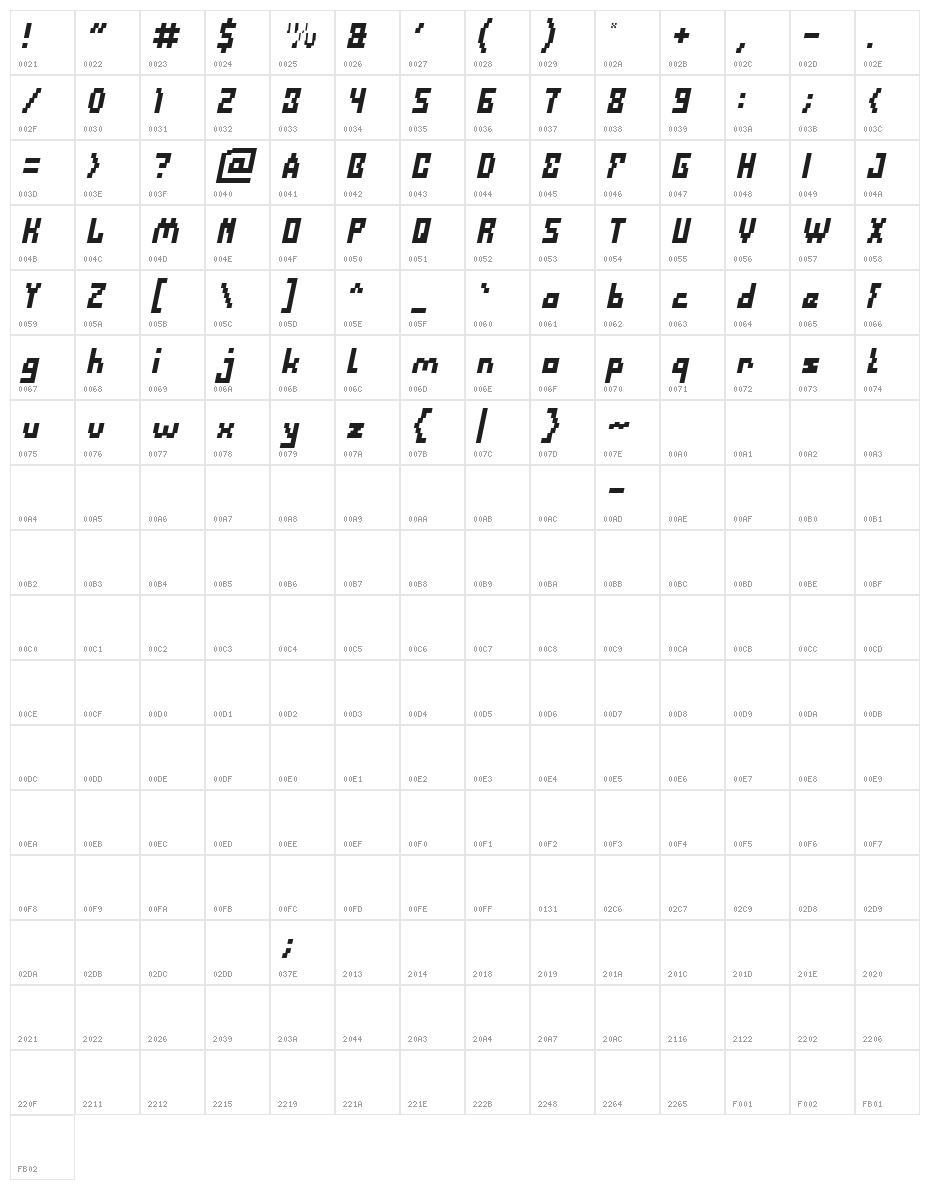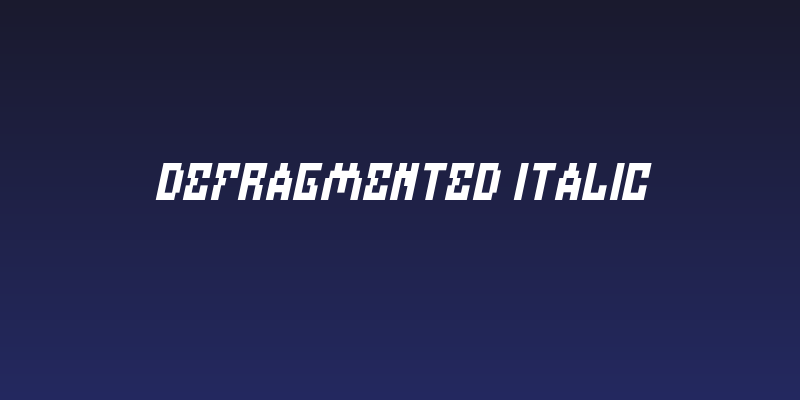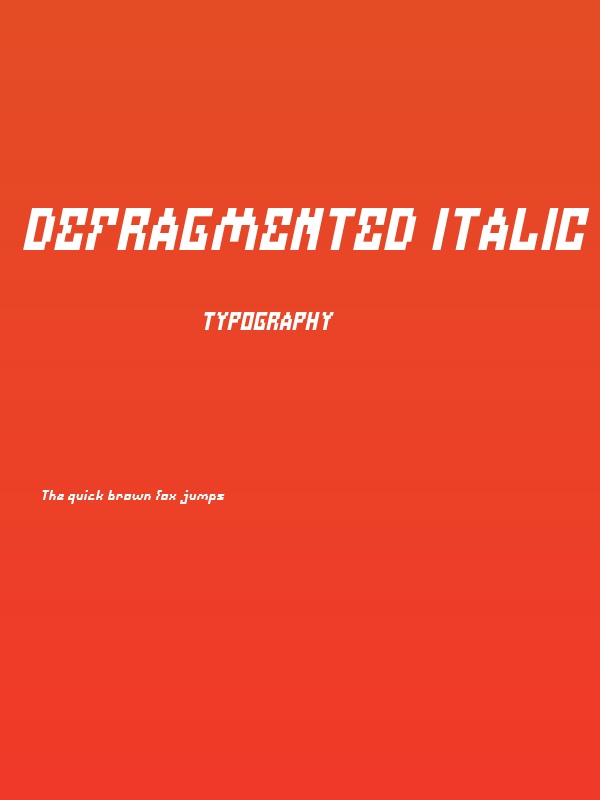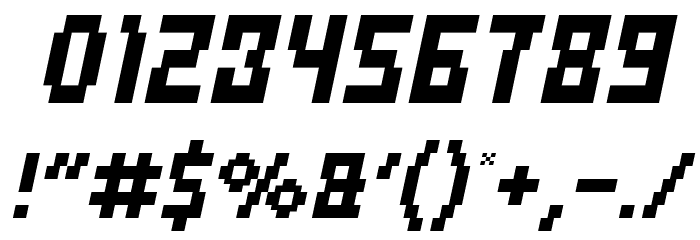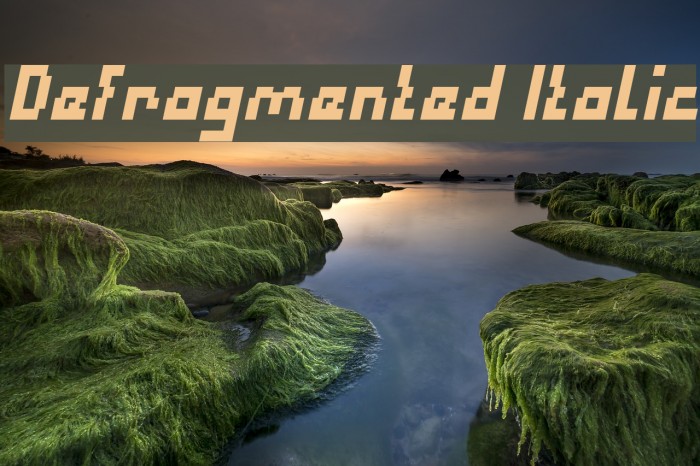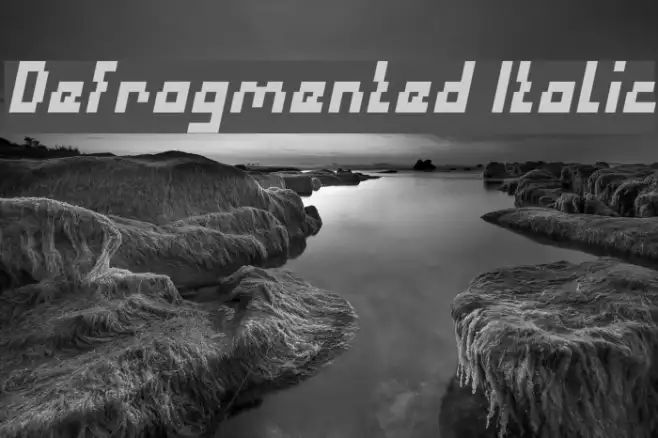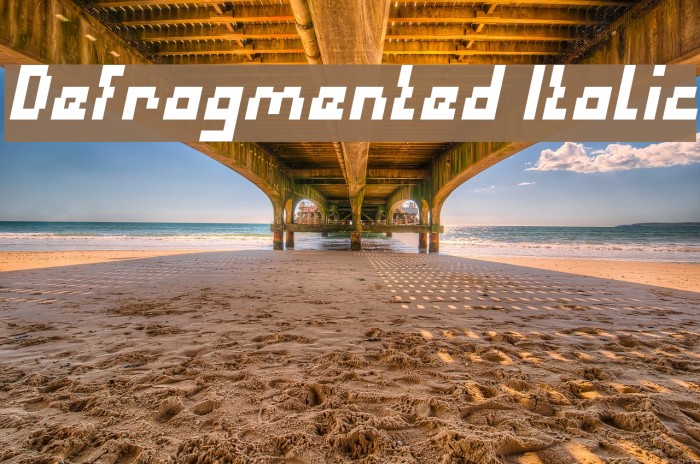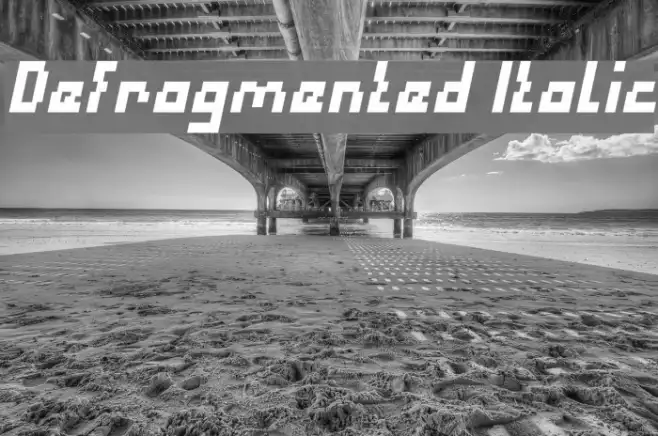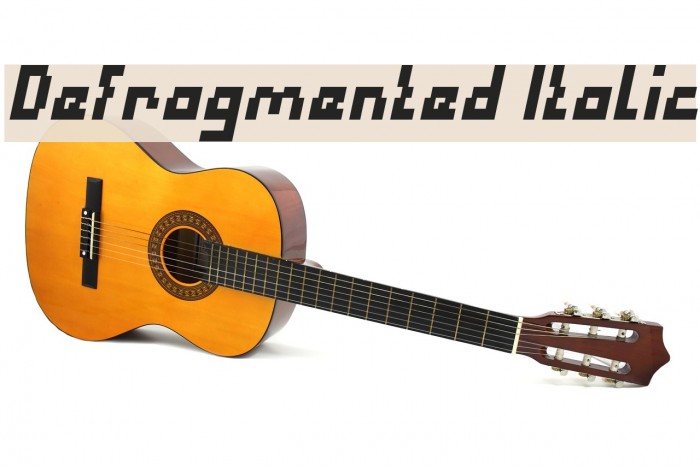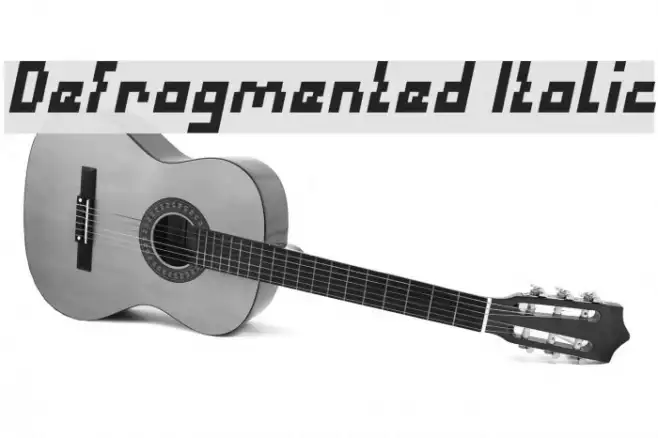
Defragmented Italic Font
Defragmented Italic Description
This font features a bold, italicized style with a pixelated, fragmented appearance. Each character is composed of sharp, angular lines, giving it a digital, futuristic look. The uppercase and lowercase letters maintain a consistent style, with the lowercase being slightly smaller and more compact. The numbers and special characters follow the same design principles, ensuring uniformity across all glyphs. The font's unique style makes it stand out, ideal for projects that require a modern, tech-inspired aesthetic.
| Proposed Projects | Ideal for video game titles, tech-themed posters, digital art, and modern branding projects. |